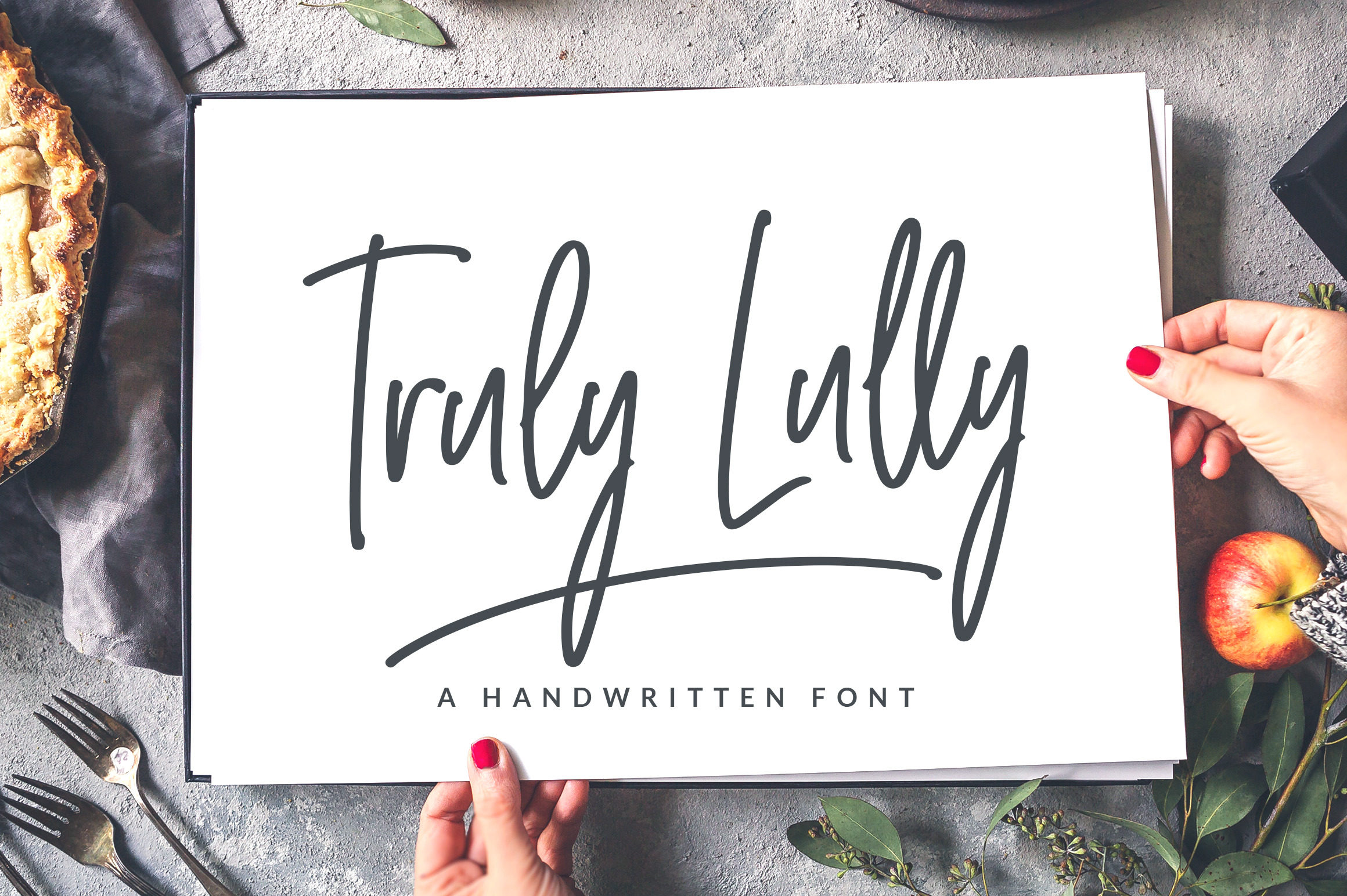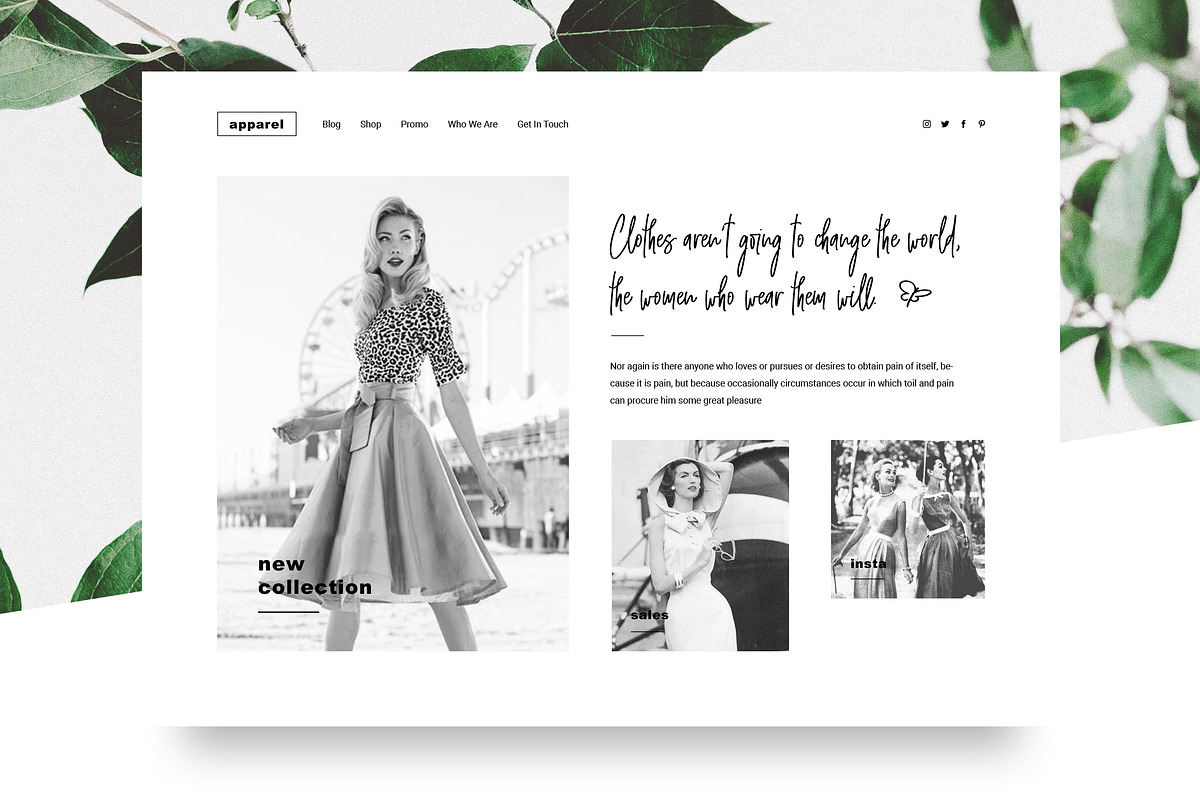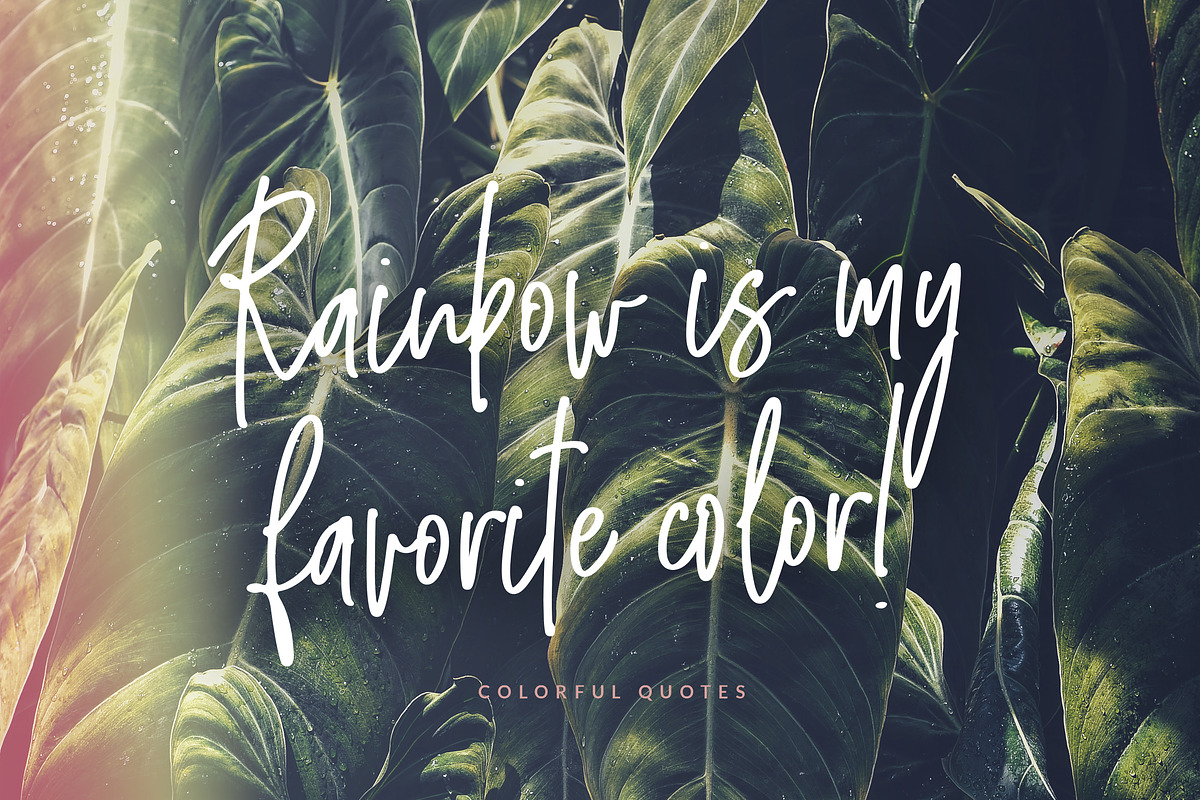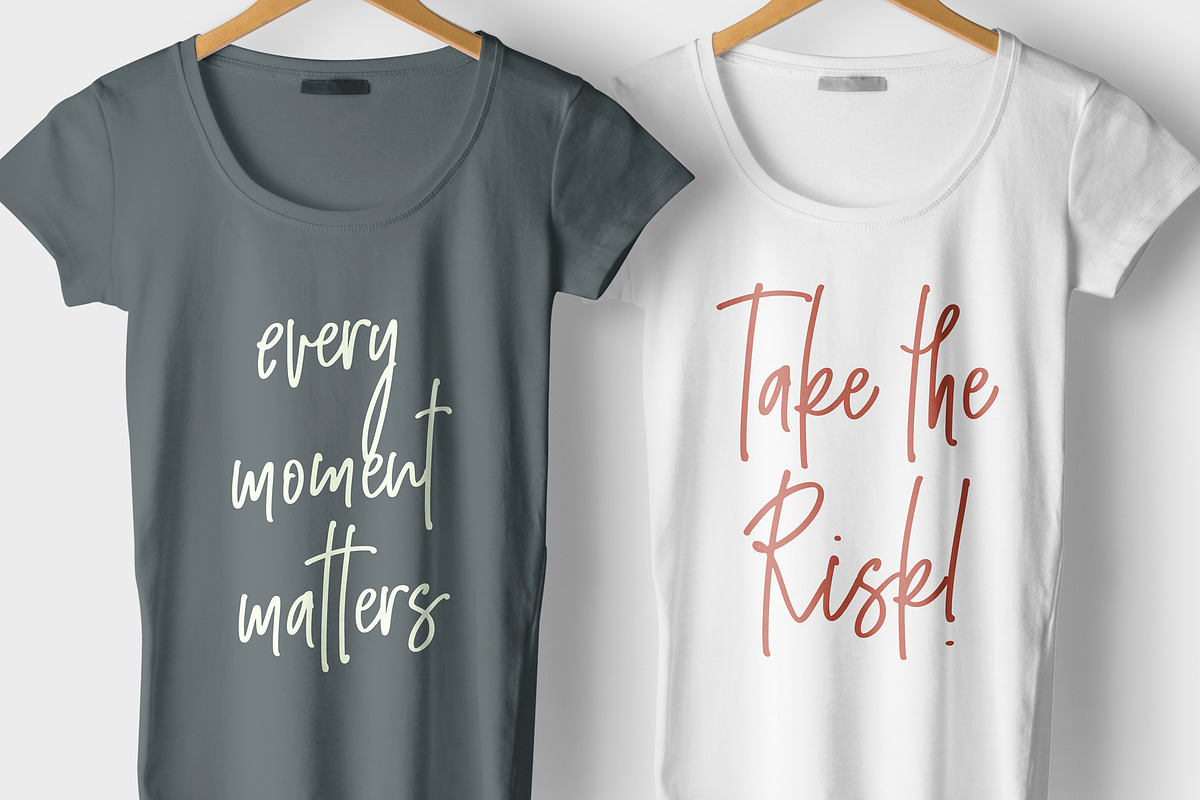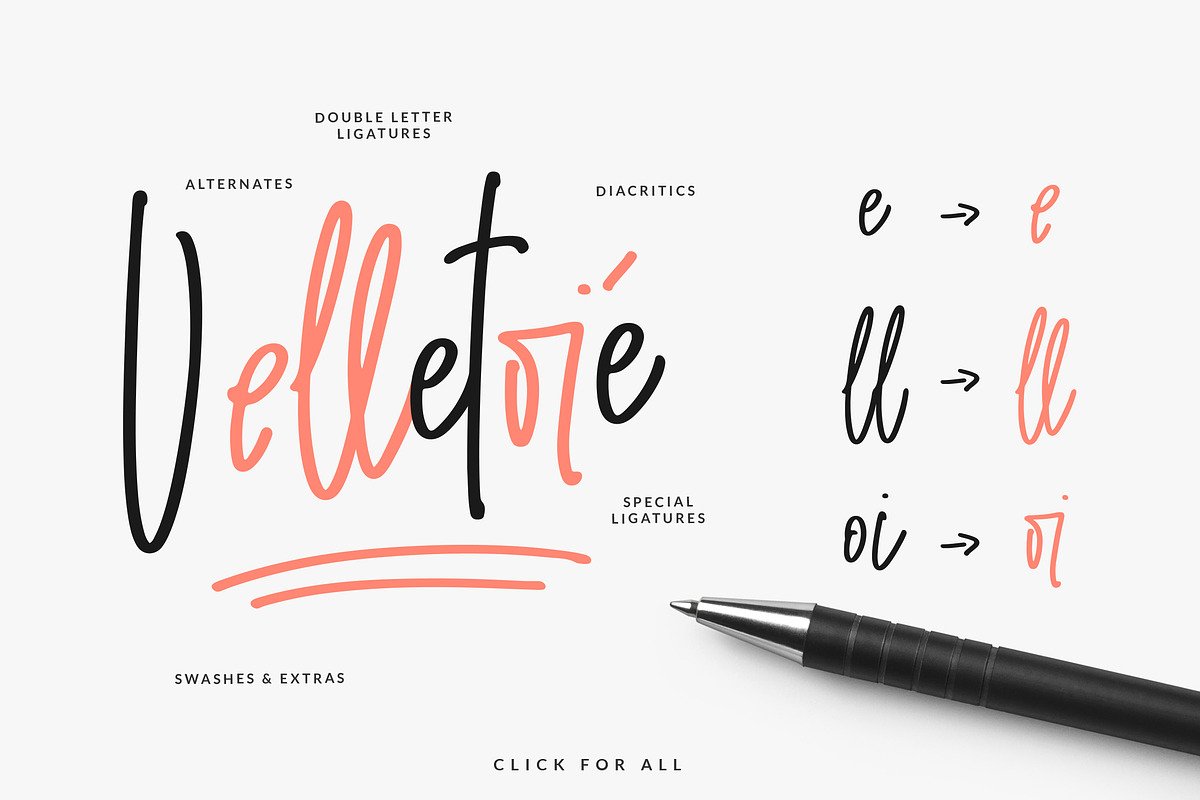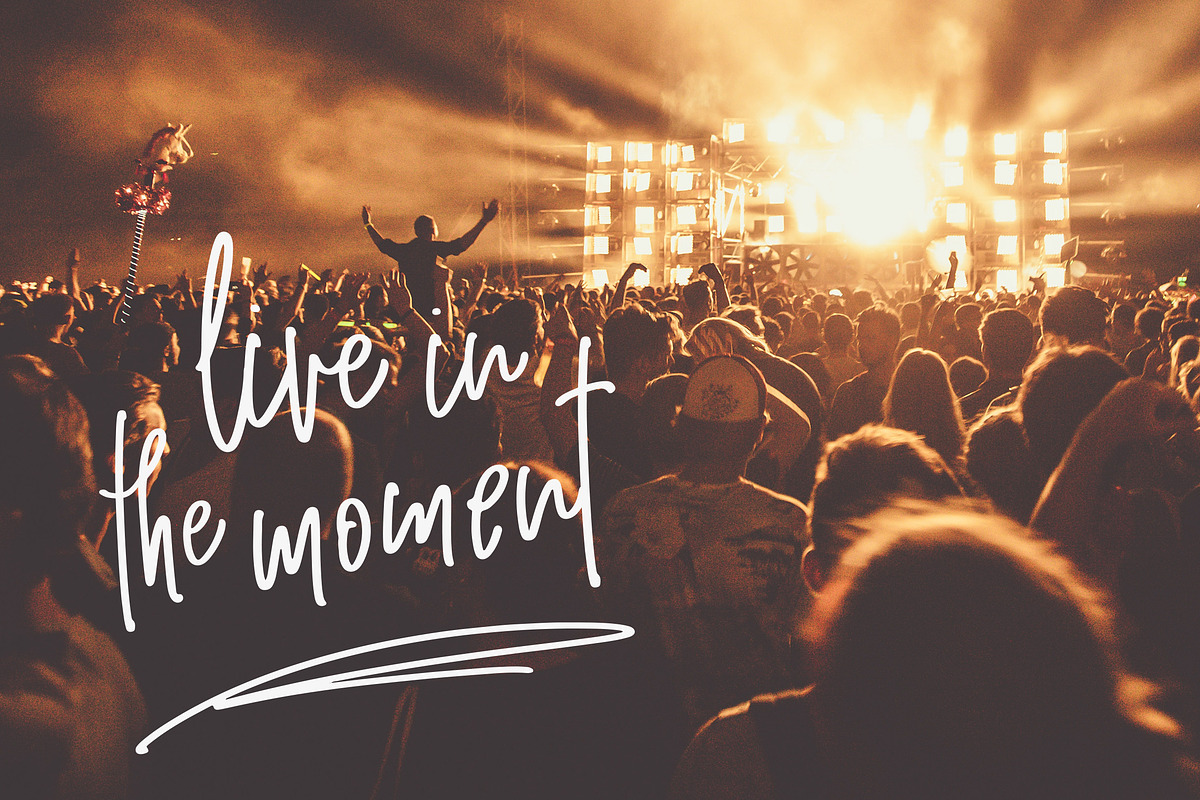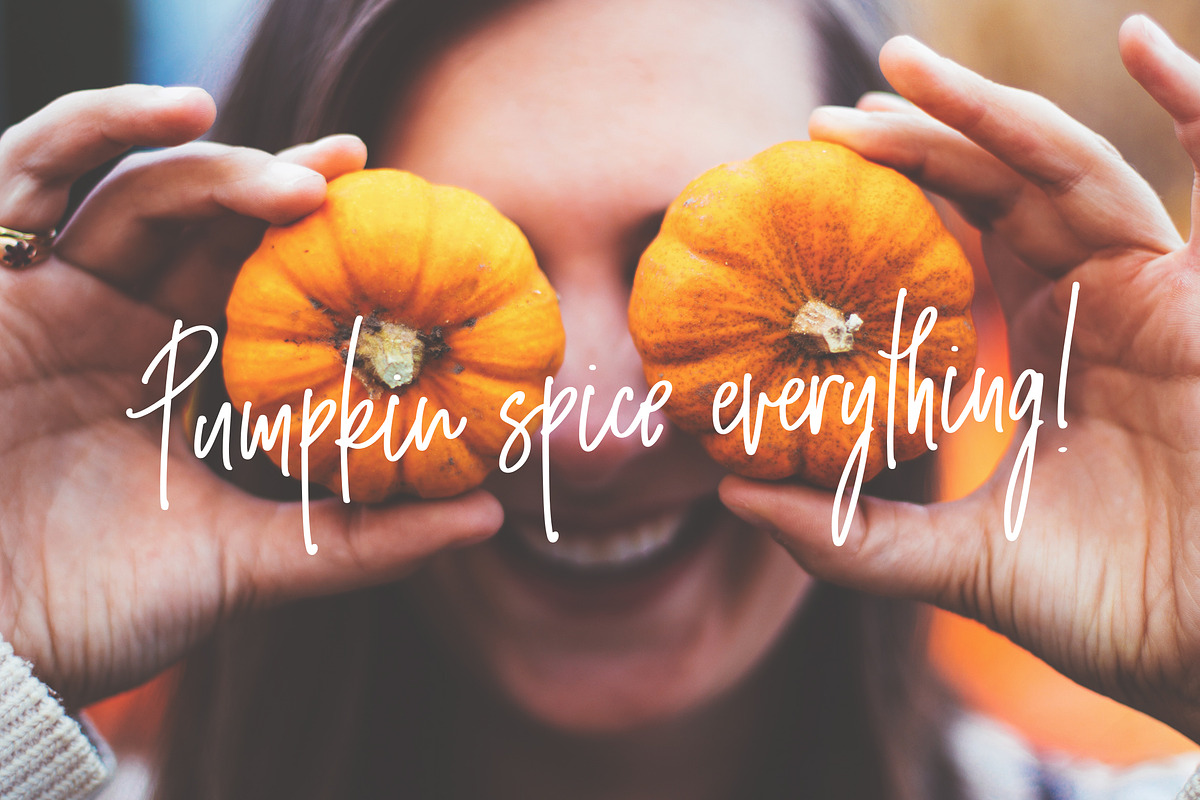
Truly Lully Handwritten Font & Extra
I really enjoyed working on Truly Lully Handwritten Font as it is a playful and cheerful font. Using it in your project, you will add an extra touch to your design. The long and narrow letters help you fit in more text, so that you can send across better messages.
Truly Lully comes with upper and lowercase Basic Characters, Numbers, Marks and Punctuation. Diacritics are also available for Western and Central European Languages. As a feature you have also the standard Double Letters Ligature, some Special Ligatures, Alternates, Swashes and Illustrations.